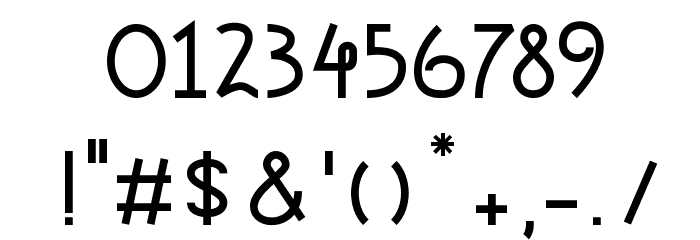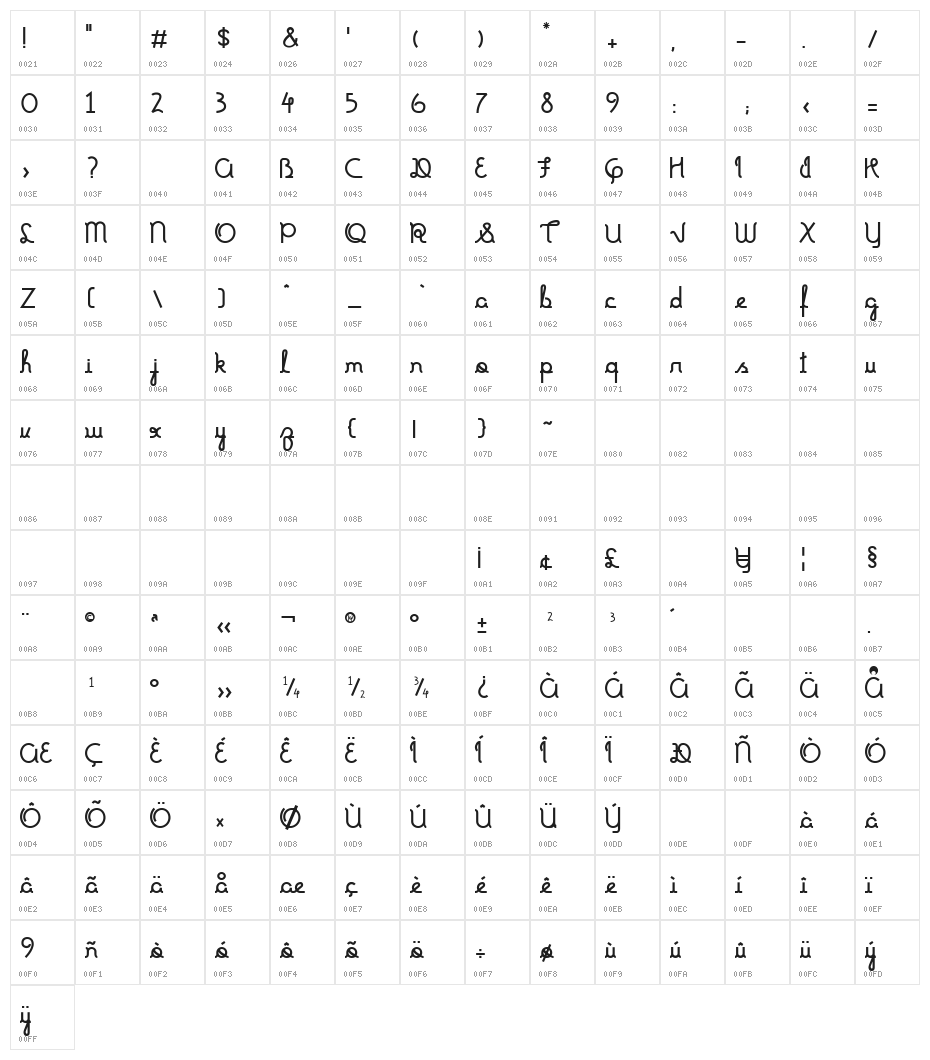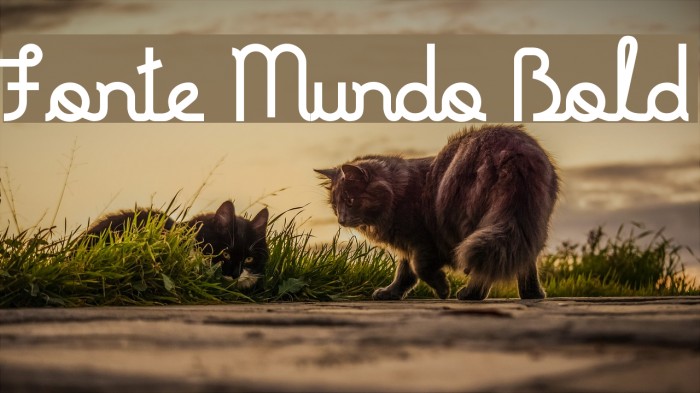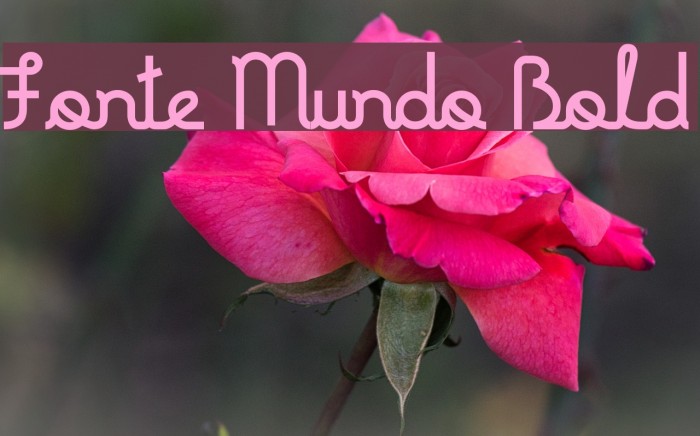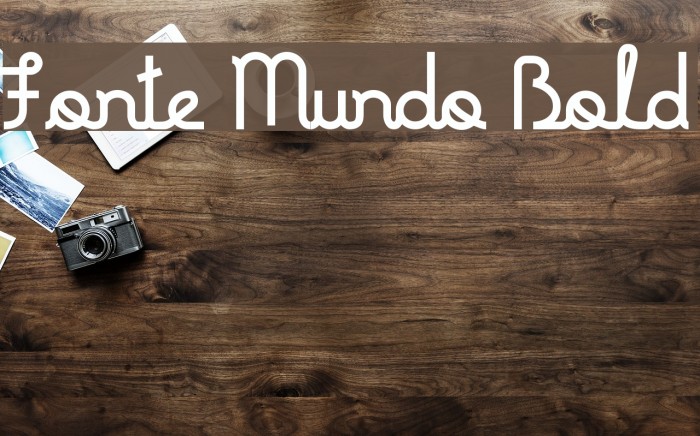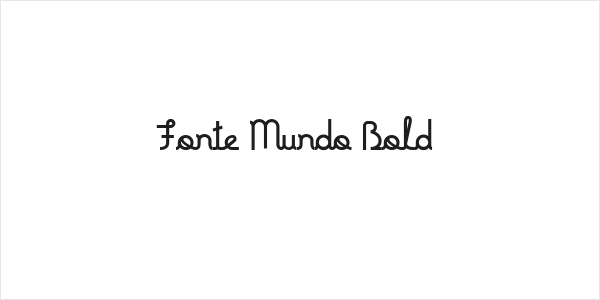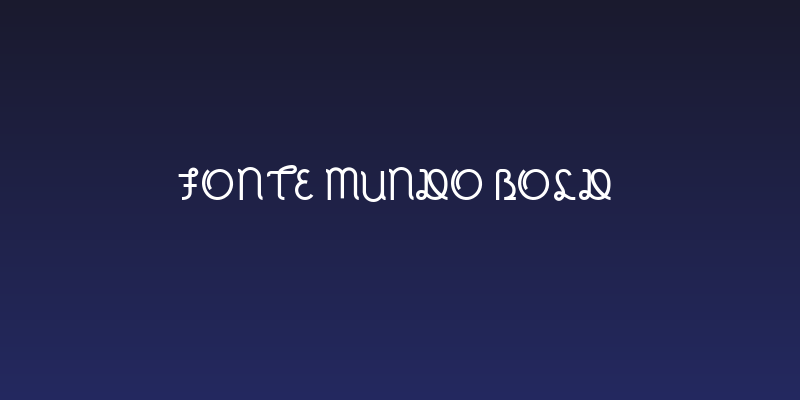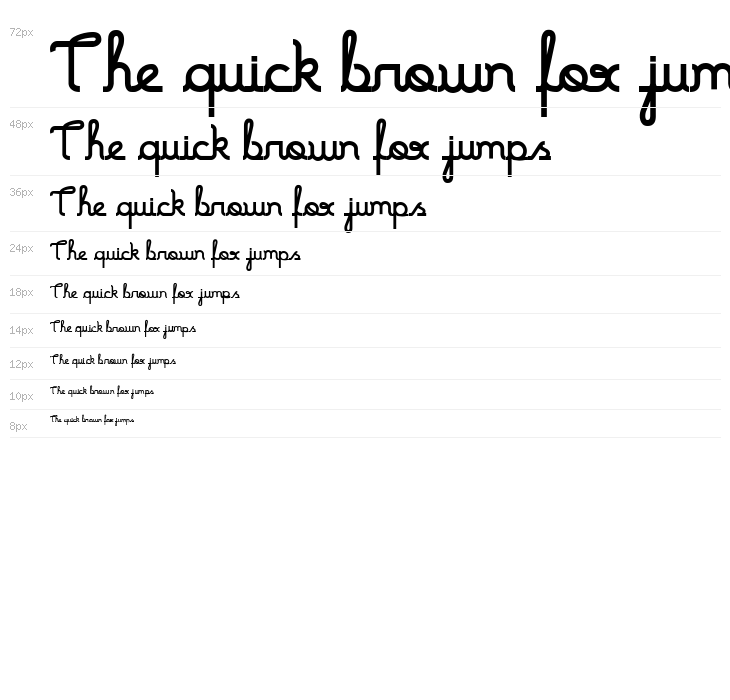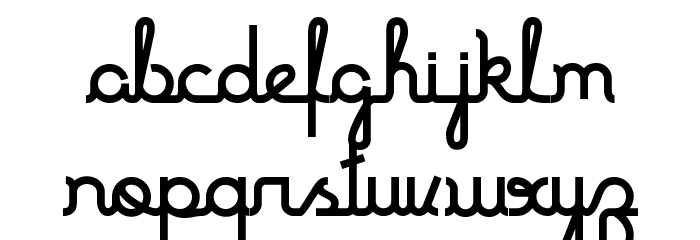
Fonte Mundo Bold Font
Fonte Mundo Bold Description
This font features a unique and artistic design with a modern twist. The characters are bold and have a distinct geometric style, incorporating both curves and straight lines. The uppercase letters have a playful yet structured appearance, while the lowercase letters maintain a consistent flow with slight variations in stroke thickness. Numbers and special characters are designed to complement the overall aesthetic, making them stand out with their bold presence. The font's design is both eye-catching and versatile, suitable for a variety of creative applications.